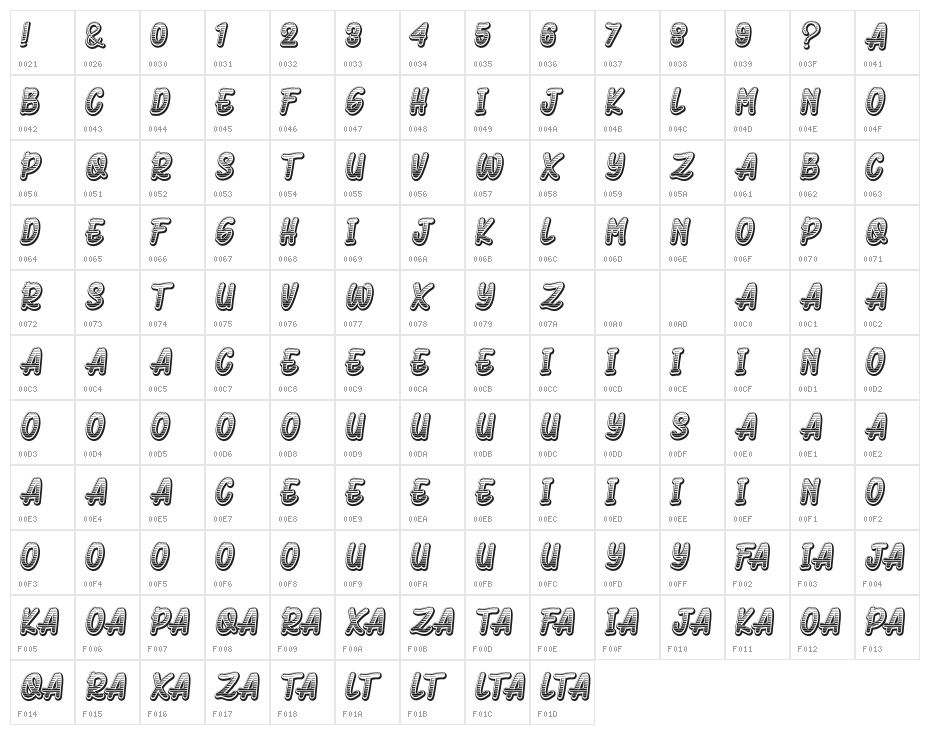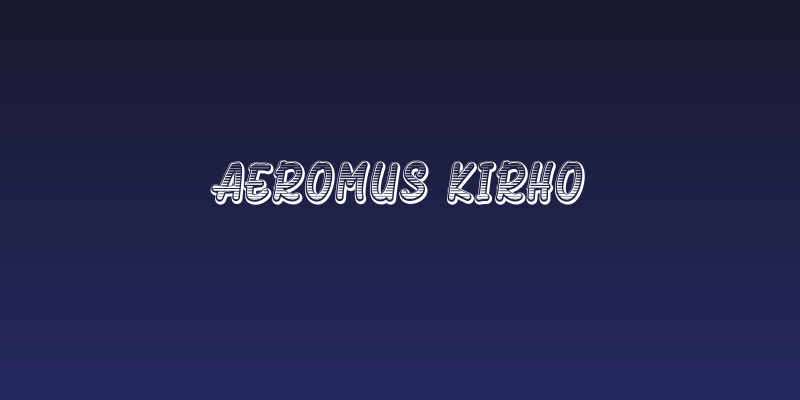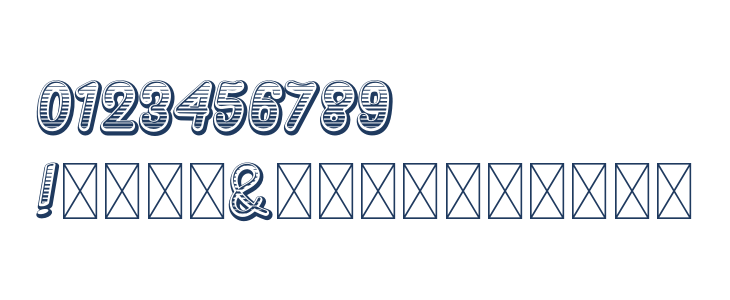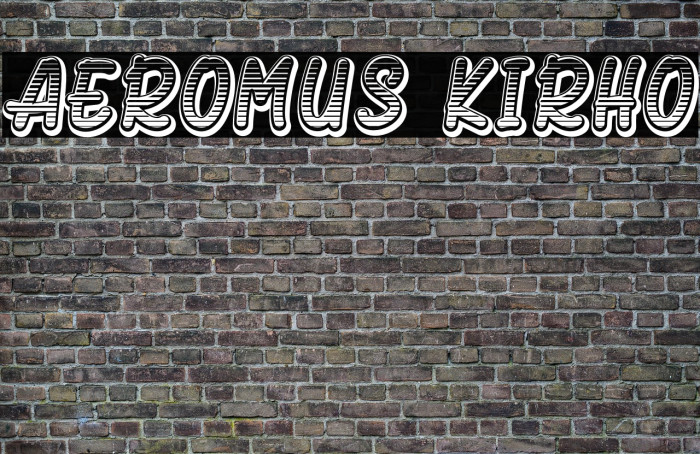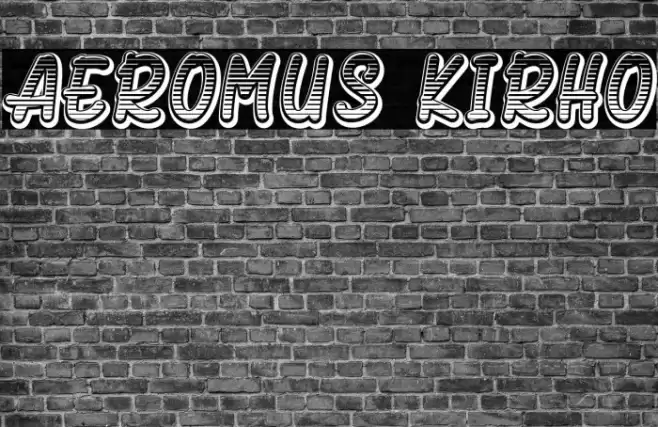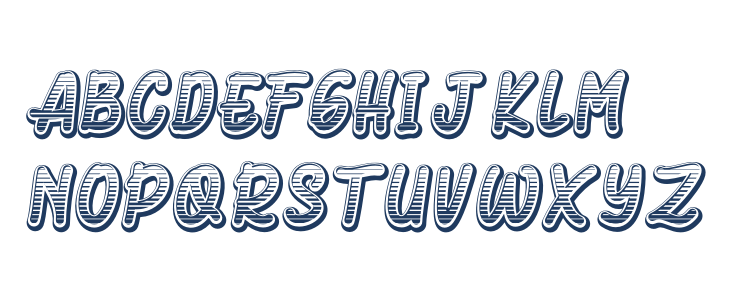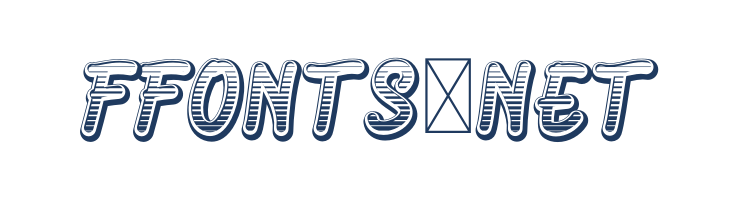
Aeromus Kirho Font
Aeromus Kirho Description
This font features a bold and playful design with a three-dimensional effect created by a striped pattern within each character. The uppercase and lowercase letters maintain a consistent style, characterized by rounded edges and a slight slant, giving a sense of movement and energy. The numbers and special characters follow the same design principles, ensuring uniformity across the font. The thick outlines and inner detailing make it stand out, ideal for eye-catching designs. This font is perfect for projects that require a fun and dynamic aesthetic.
| Overall Style | Playful, Dynamic, Modern |
| Use Case | Headlines, Posters, Branding |
| Proposed Projects | Ideal for posters, children's books, playful branding, and creative headlines. |